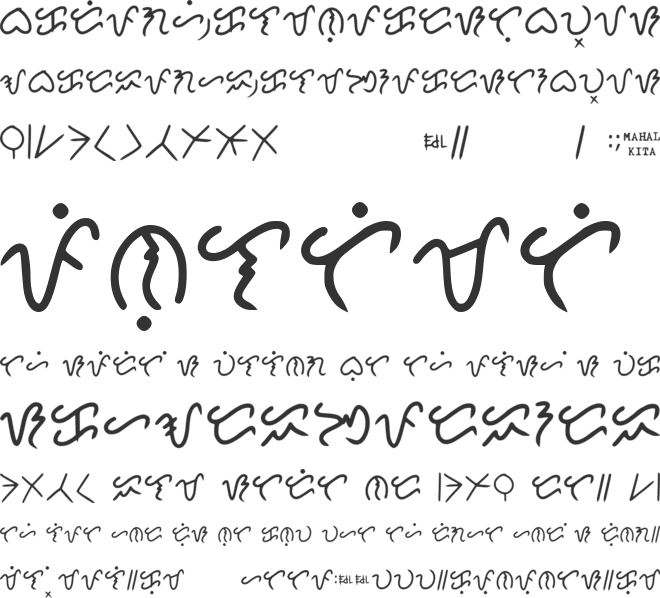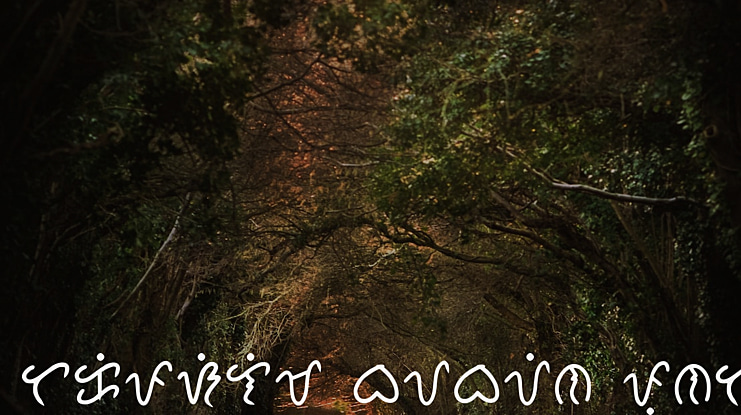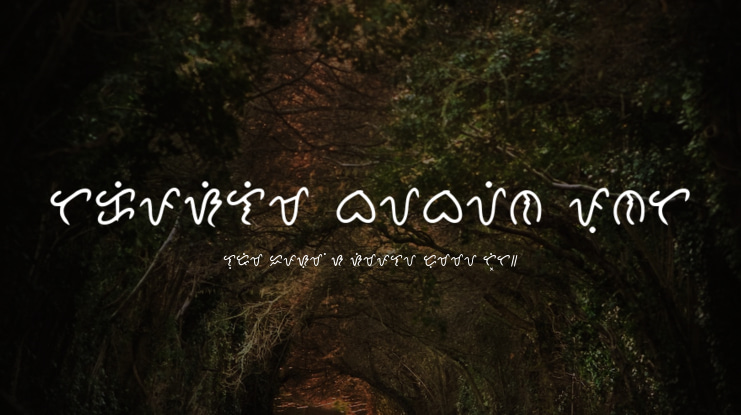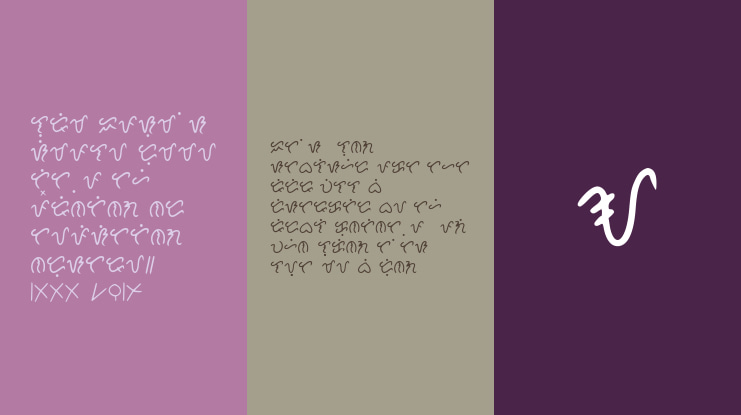
Takipsilim_baybayin_font Font
The Philippine National Writing System, also known as Baybayin, consists of various elements such as B17x, Pamilangan, Tuldok Kudlit, Virama krus, sinawali, and pamudpod.
Baybayin B17x, Pamilangan, Tuldok Kudlit, Virama krus, sinawali, pamudpod